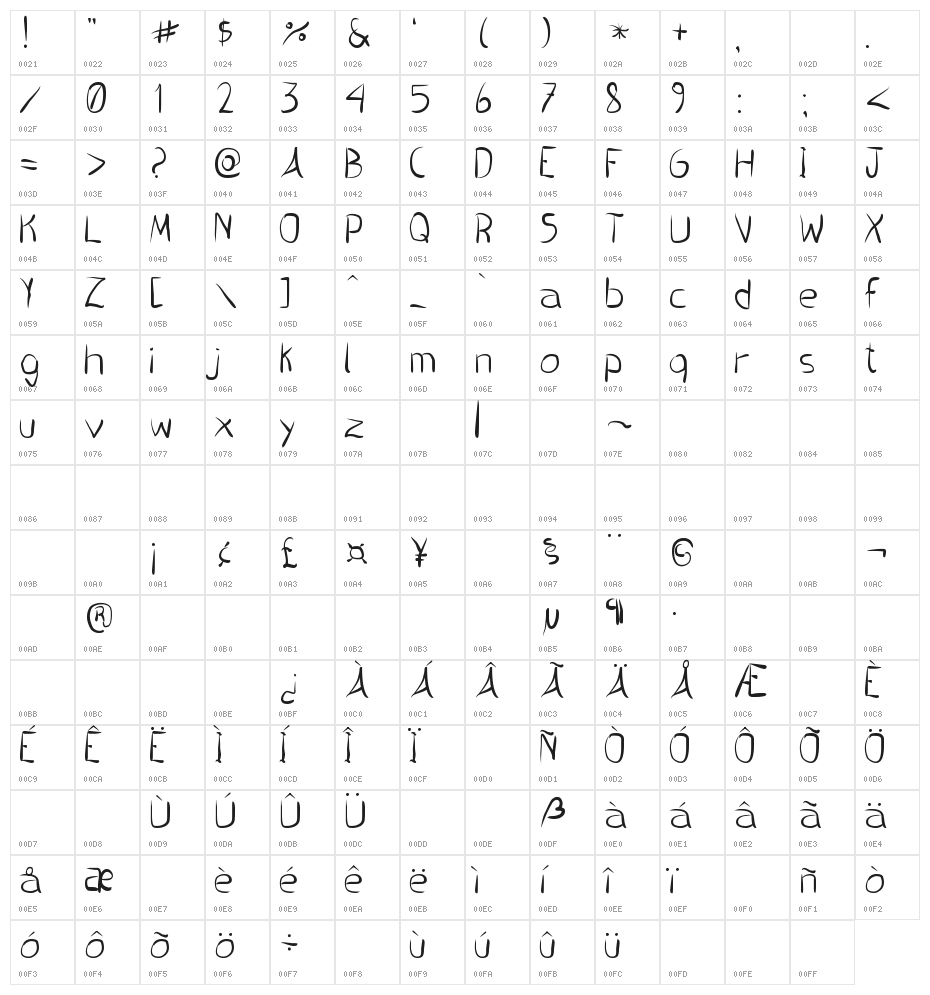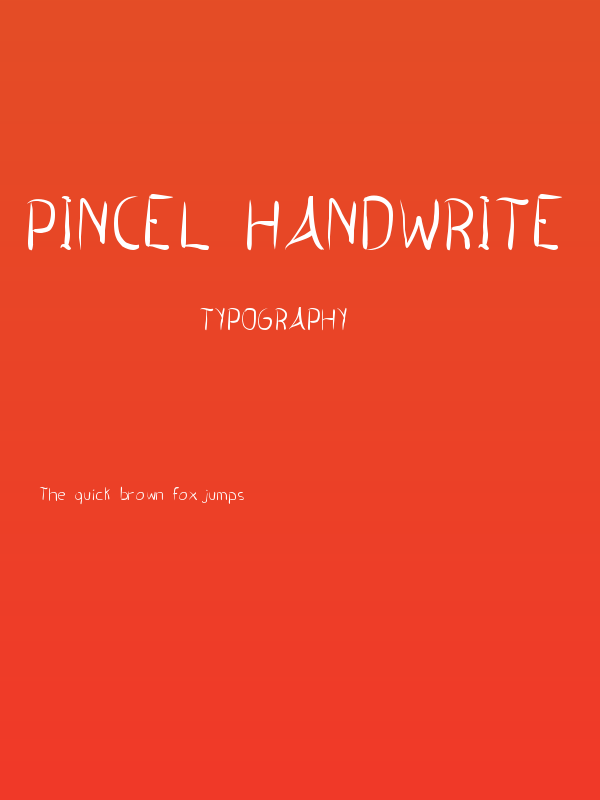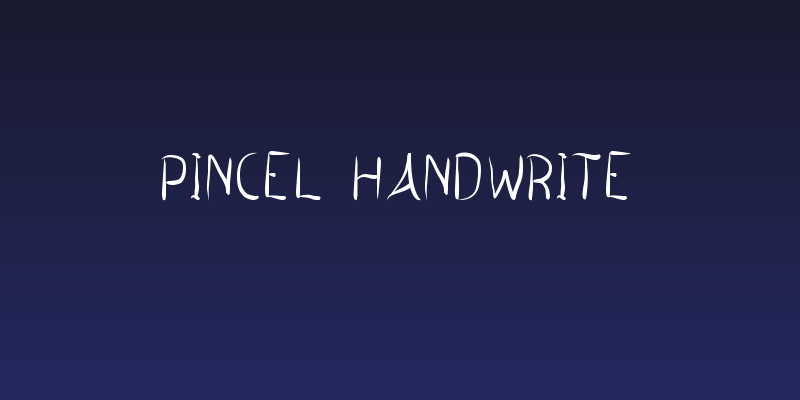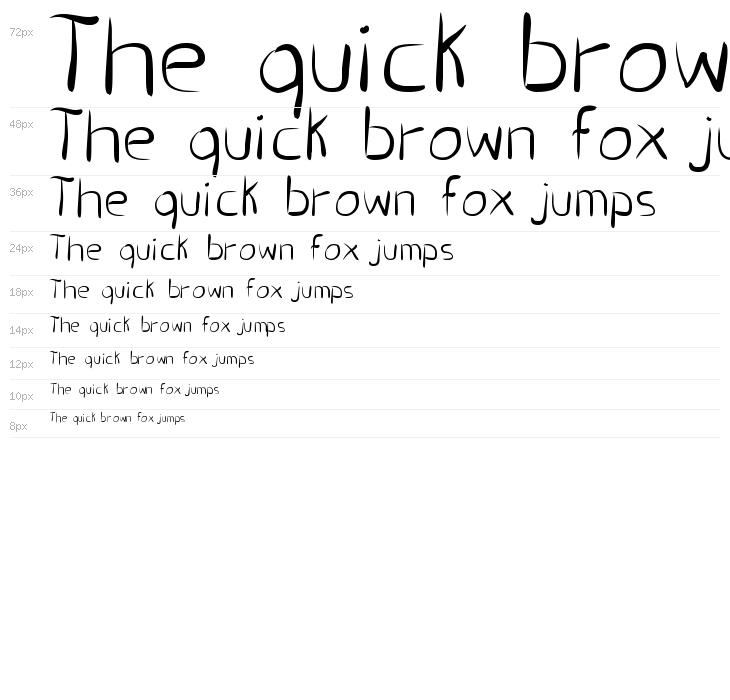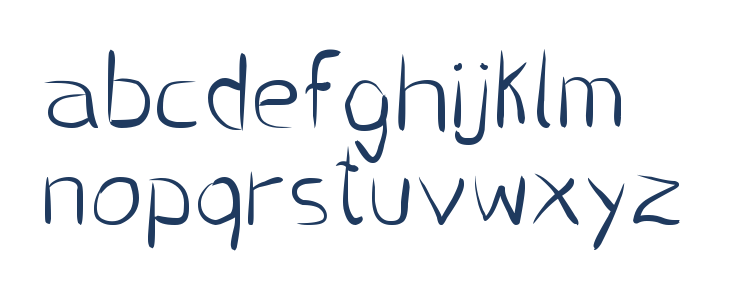
Pincel handwrite Font
Pincel handwrite Description
This font features a dynamic and expressive handwritten style, characterized by its fluid strokes and organic shapes. The letters exhibit a playful yet elegant appearance, with varying stroke widths that add a sense of movement and personality. The uppercase letters are bold and prominent, while the lowercase letters maintain a consistent flow, enhancing readability. Numbers and special characters are crafted with the same artistic flair, making them visually cohesive with the alphabet. This font's unique style makes it suitable for creative and artistic projects where a personal touch is desired.